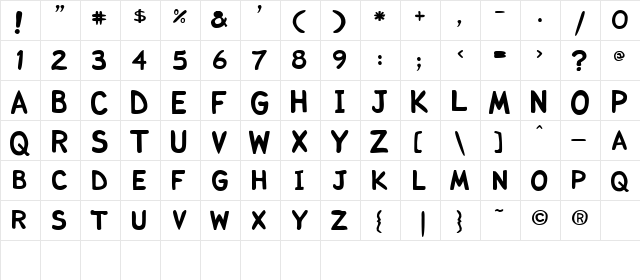
Comicka Regular
Design Context for Comicka Typeface
Comicka has an approachable, lighthearted character — its loose, expressive forms are well-suited to children's content, casual branding, and fun-first design.
Font Pairing: Pairs well with a rounded or humanist sans for body copy, maintaining the friendly tone without relying on Comicka to carry extended reading.
Pro Tip: Avoid using Comicka for long passages of text — it works best for headlines, labels, and short calls to action.